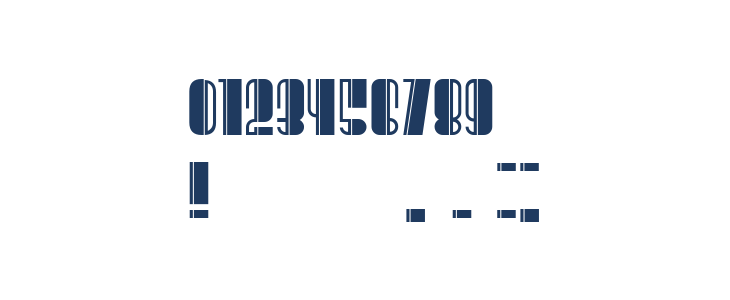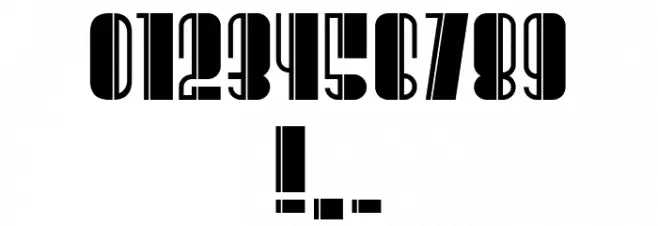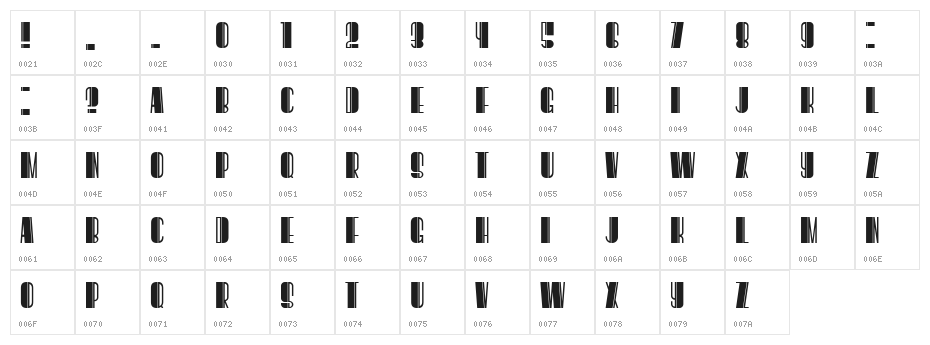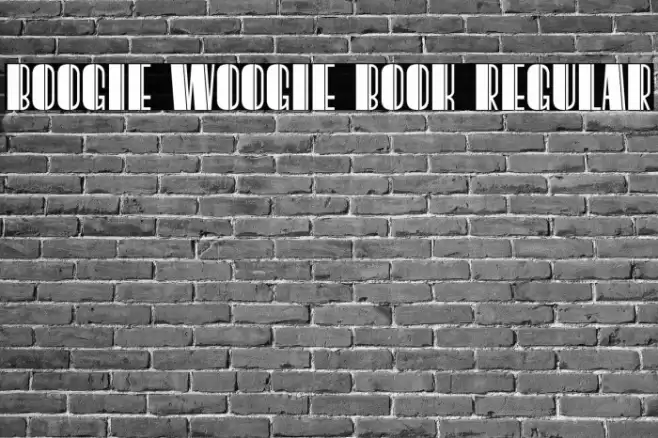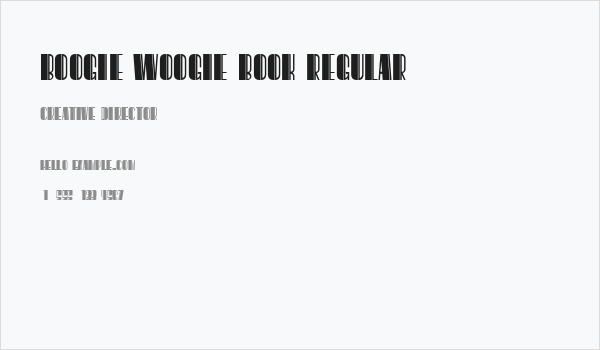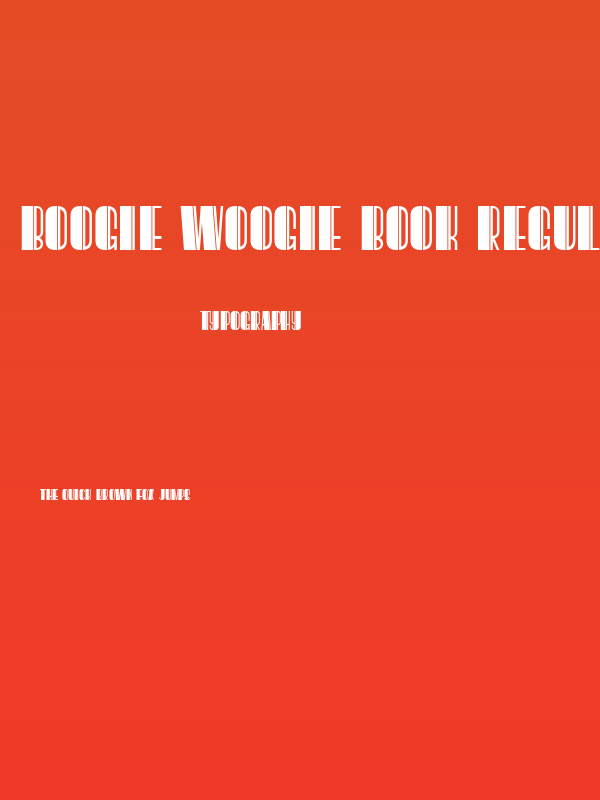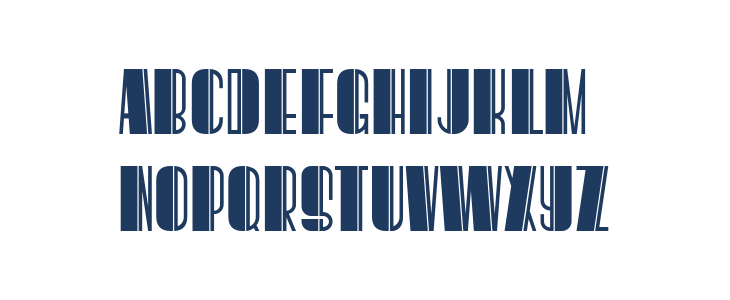
Boogie Woogie Book Regular Font
Boogie Woogie Book Regular Description
This font features a bold and dynamic style with high contrast between thick and thin strokes. The characters are tall and narrow, giving them a condensed appearance. The uppercase letters are particularly striking, with a unique geometric flair that adds a modern touch. The numbers and special characters maintain the same boldness and style, ensuring consistency throughout. This font is designed to make a statement, with its eye-catching and artistic design.
| Proposed Projects | Ideal for posters, album covers, branding projects, and any design that requires a bold, artistic touch. |